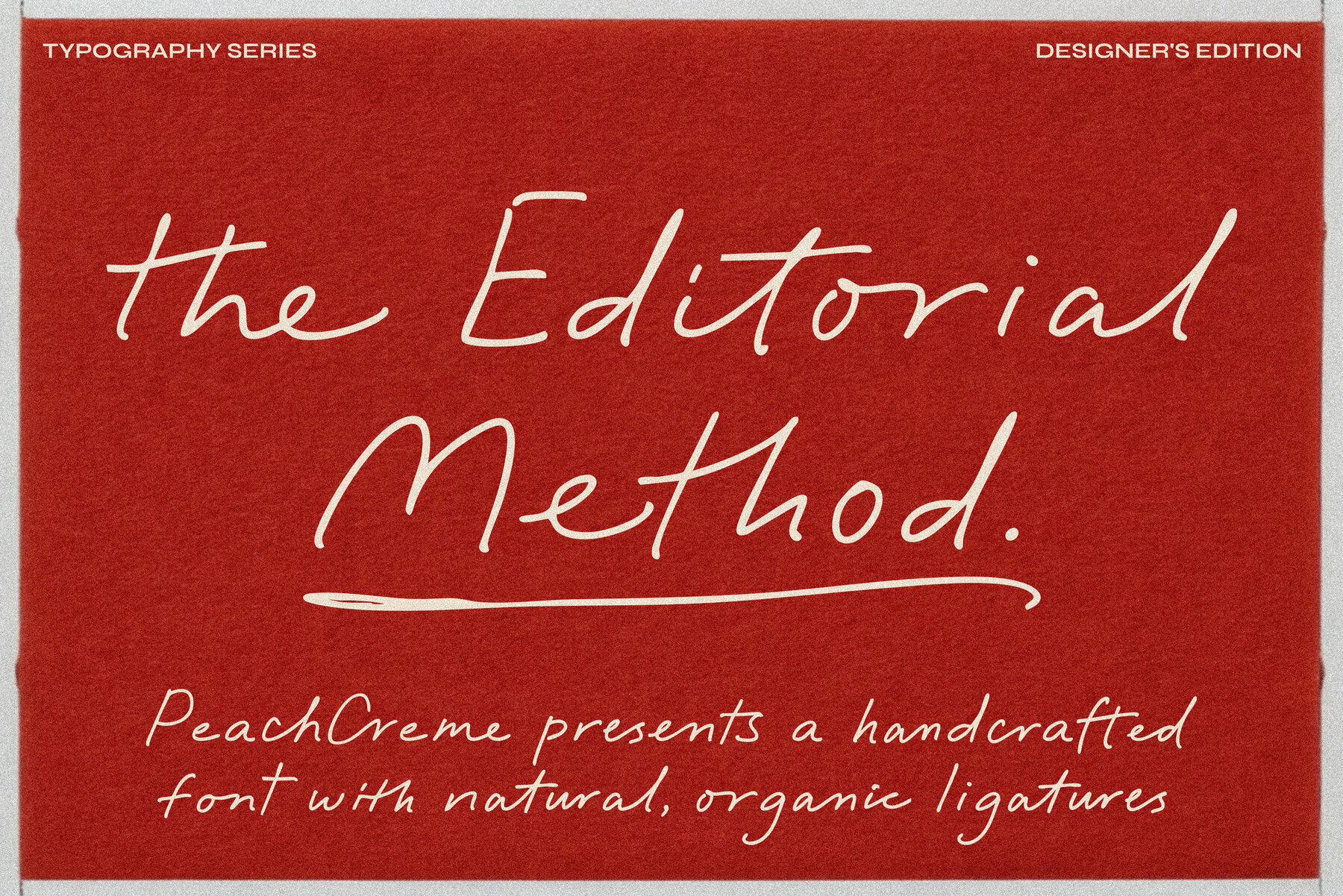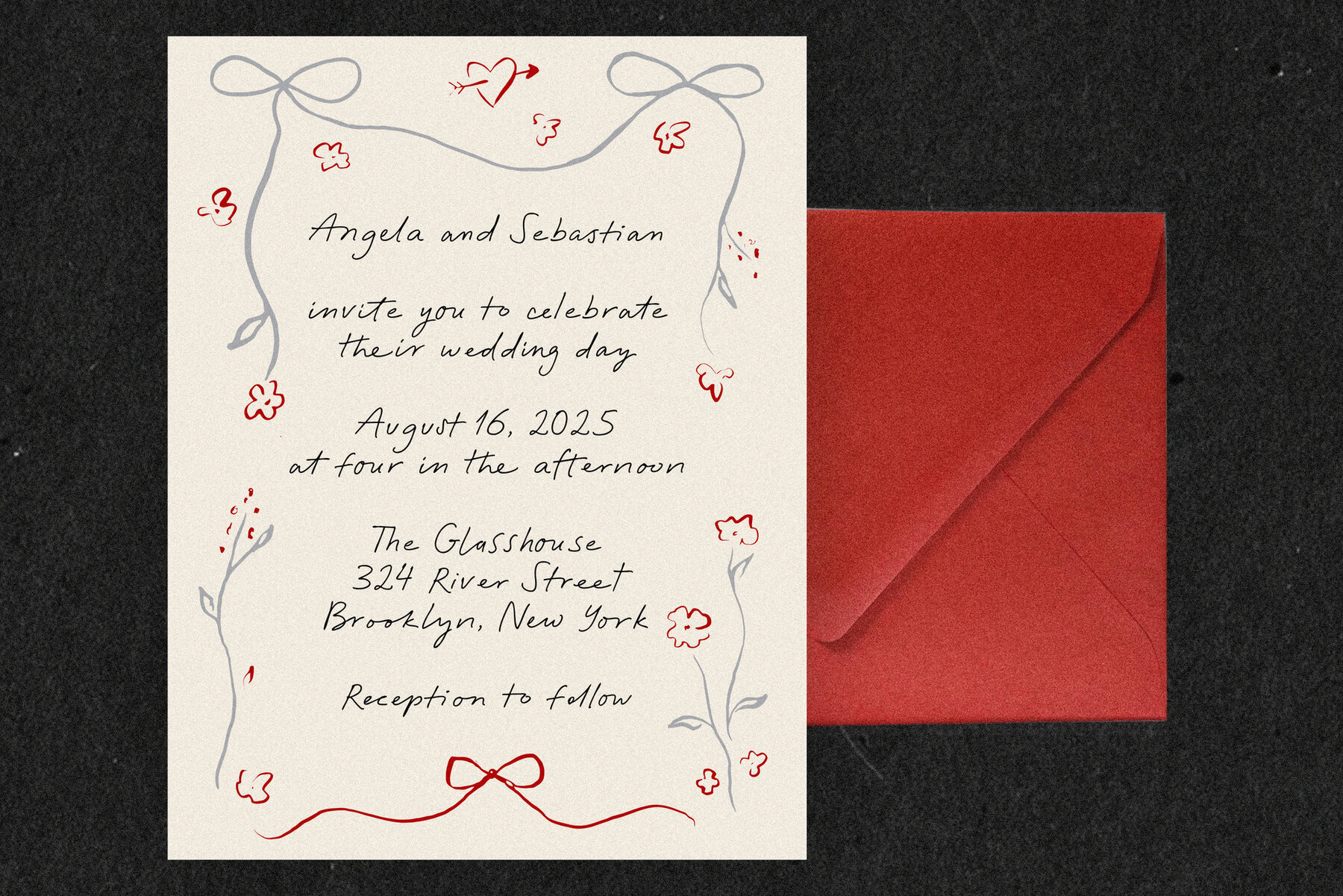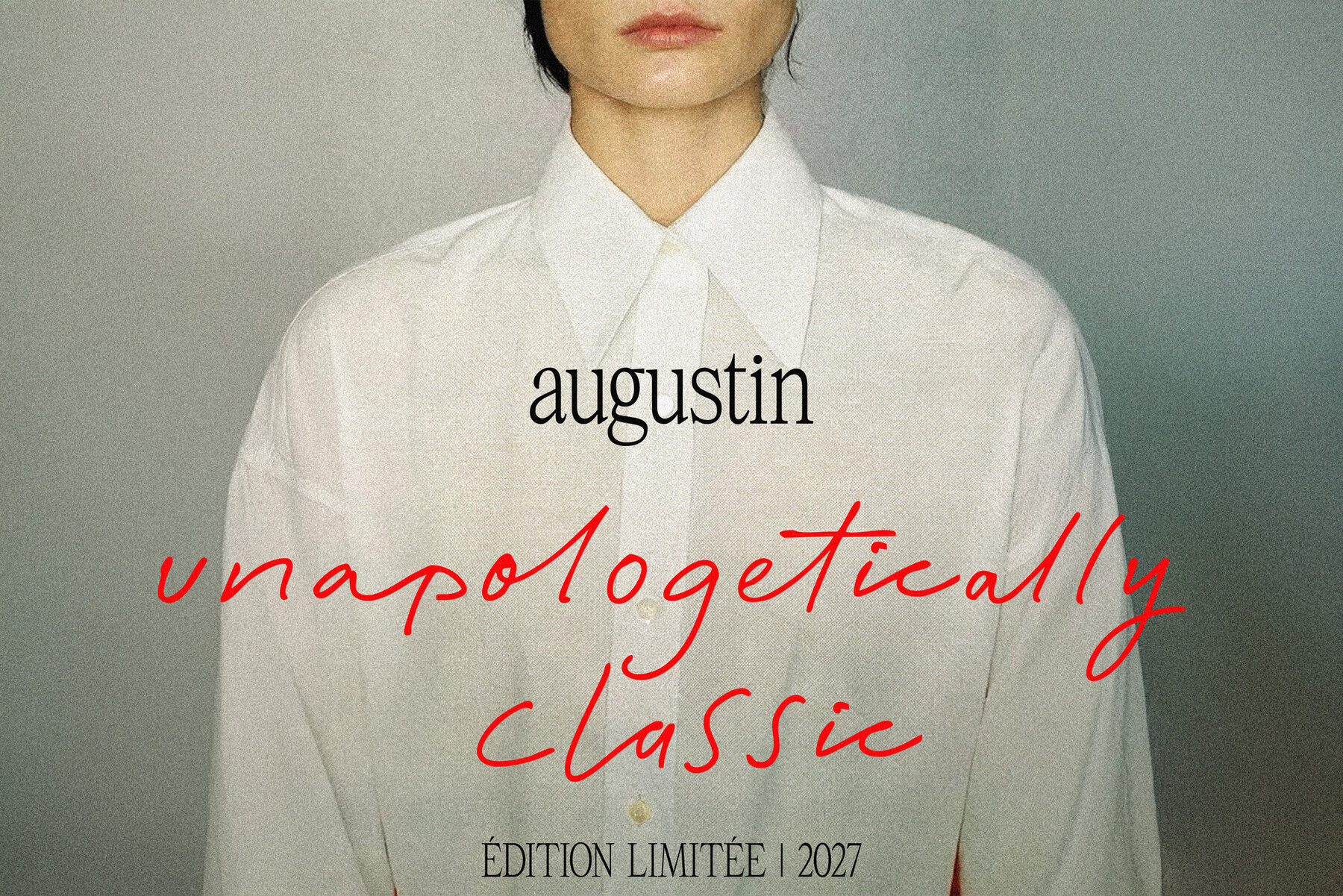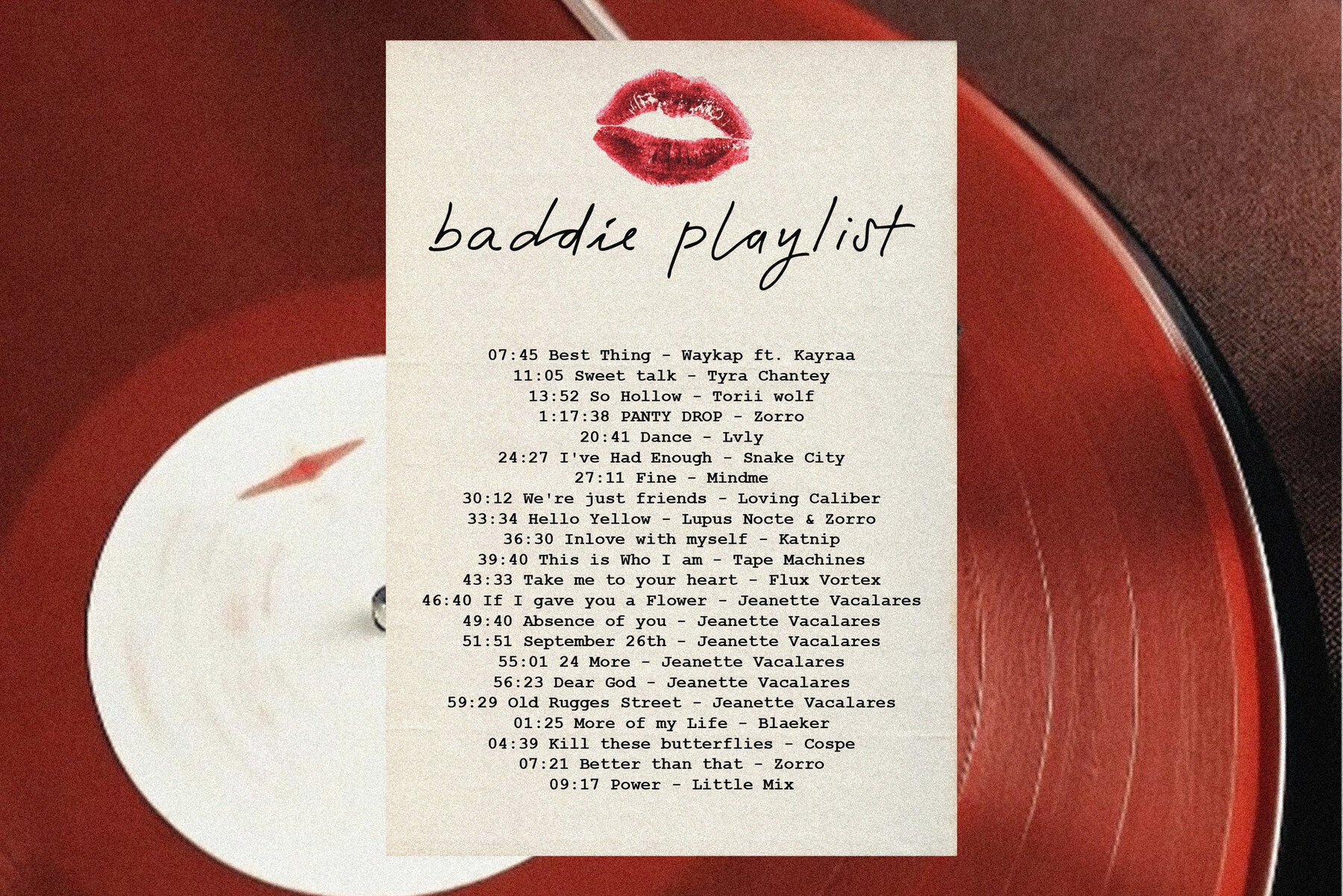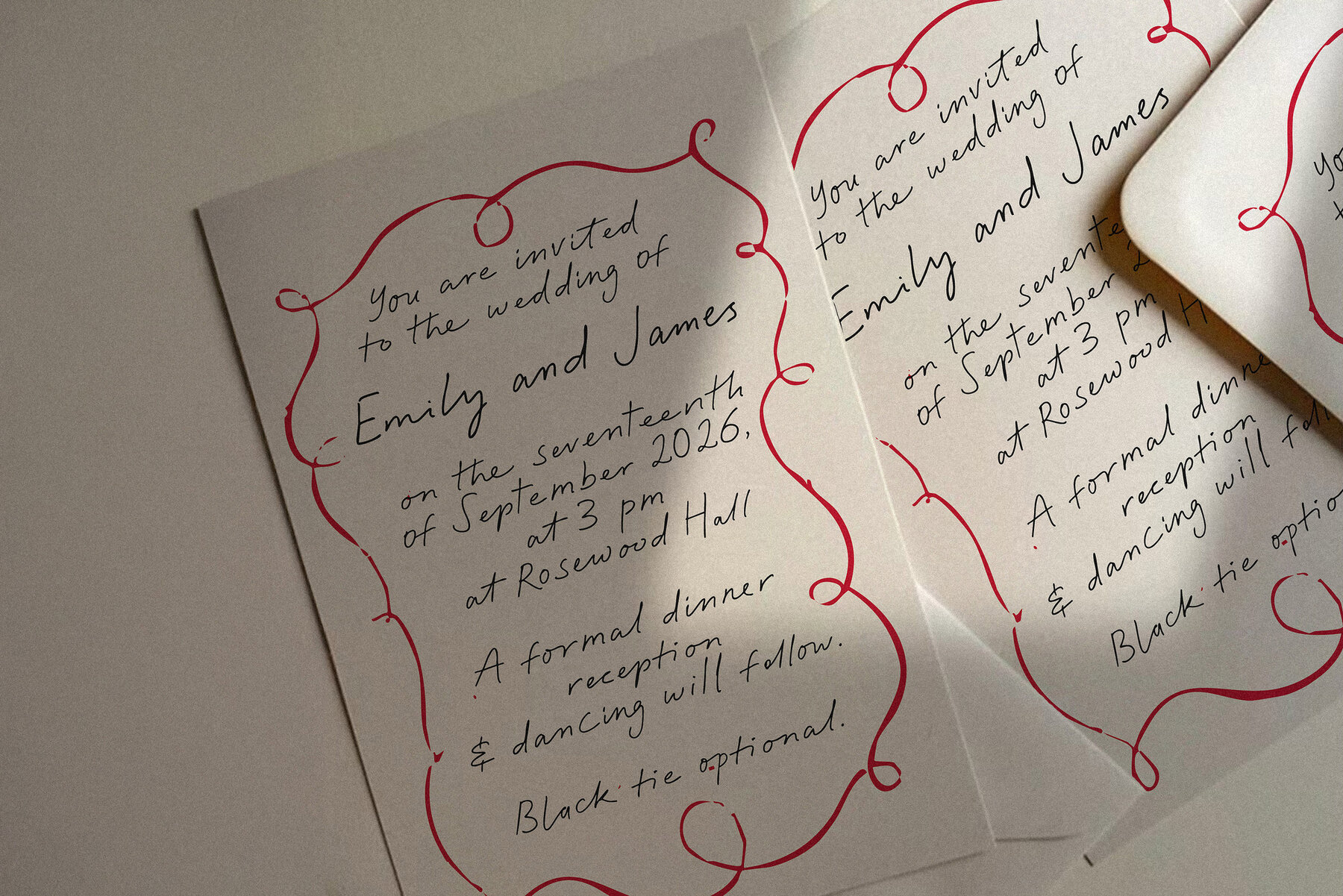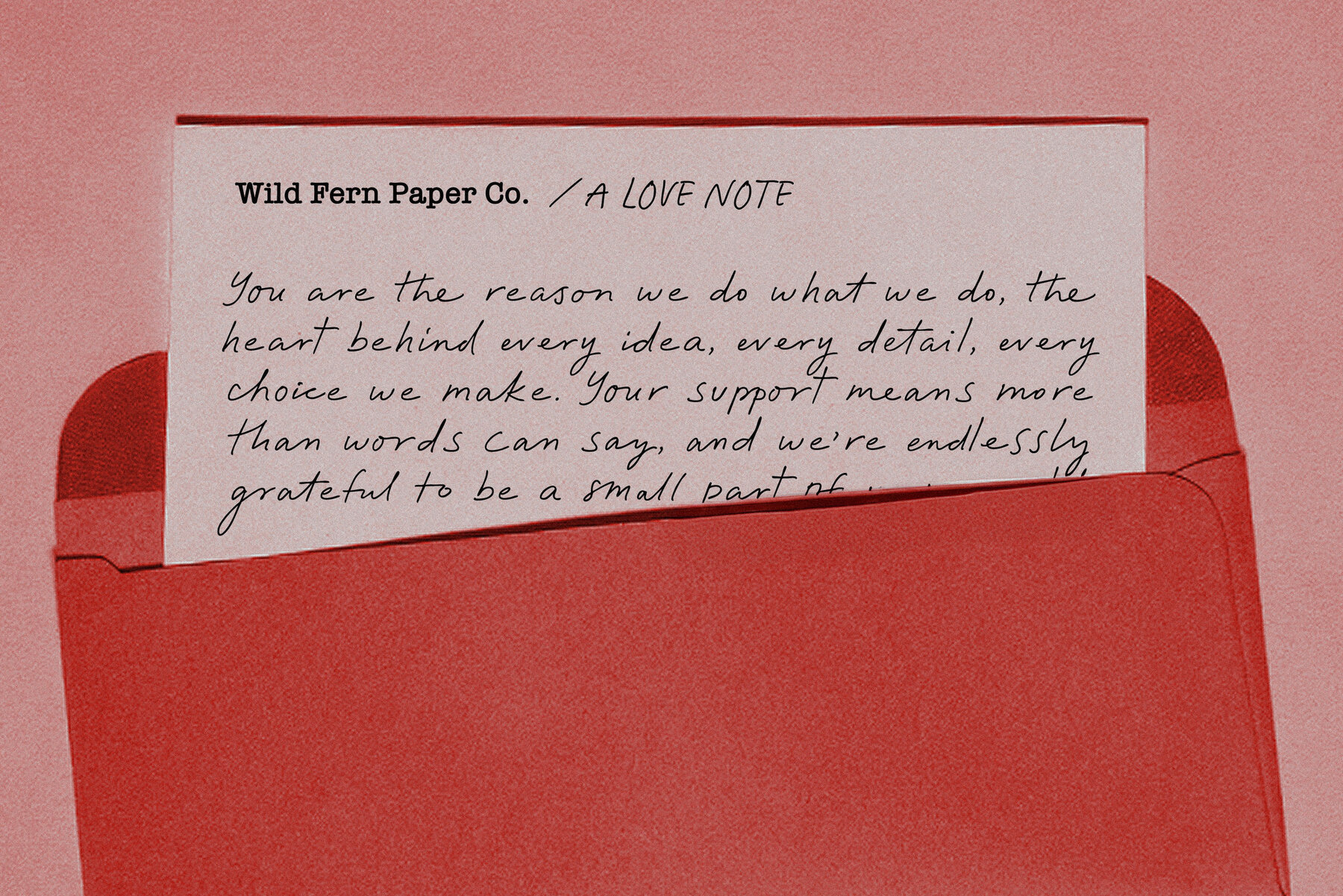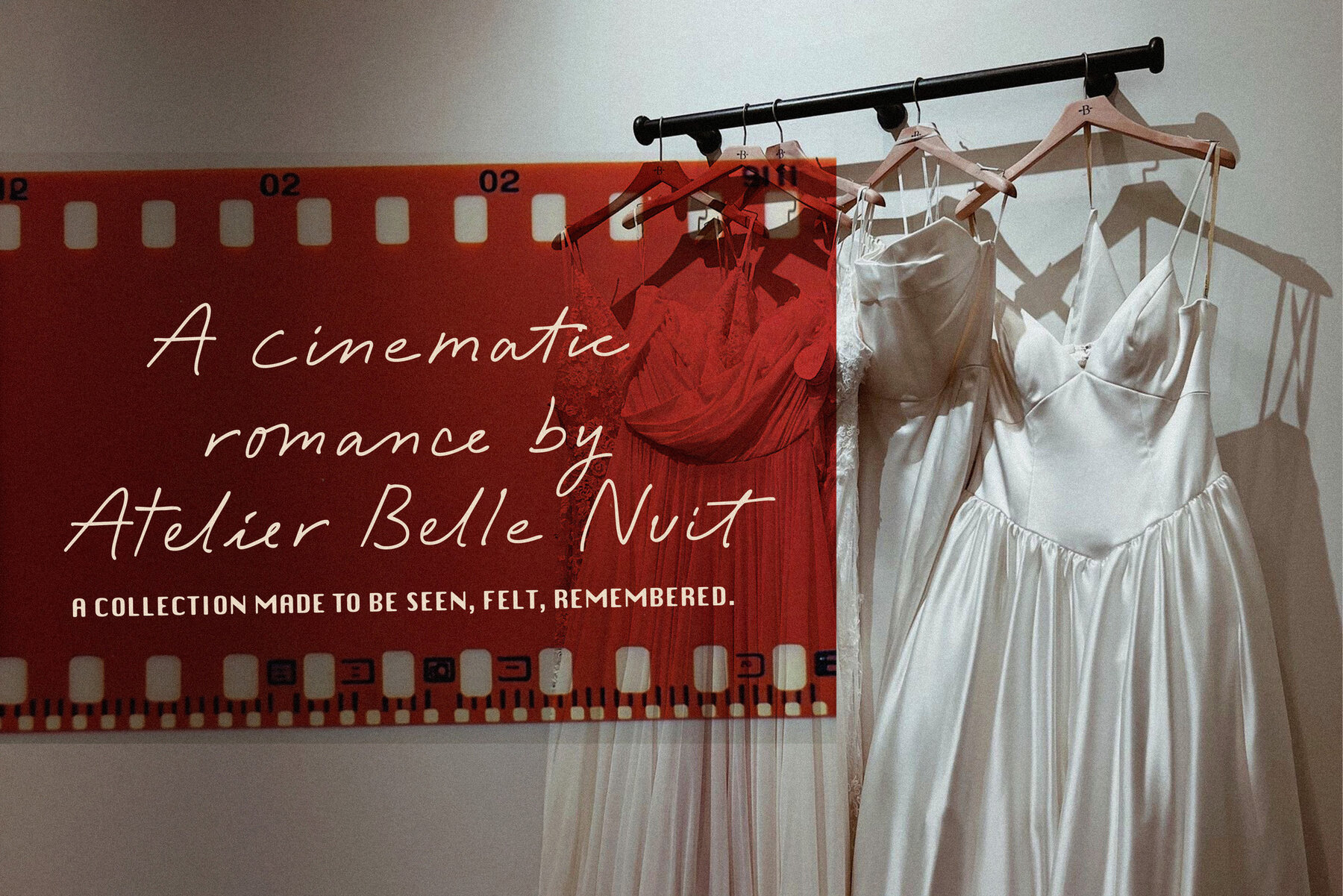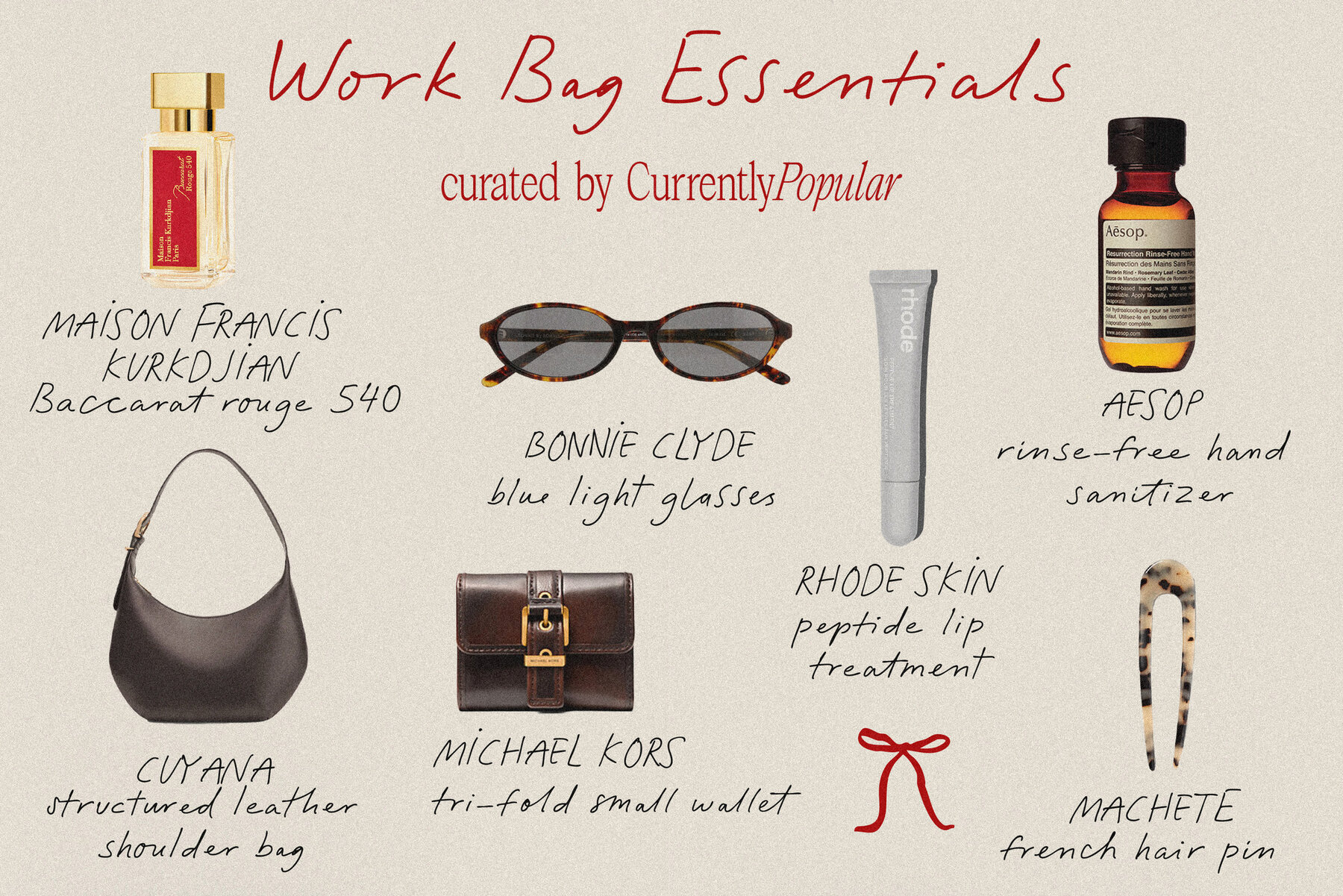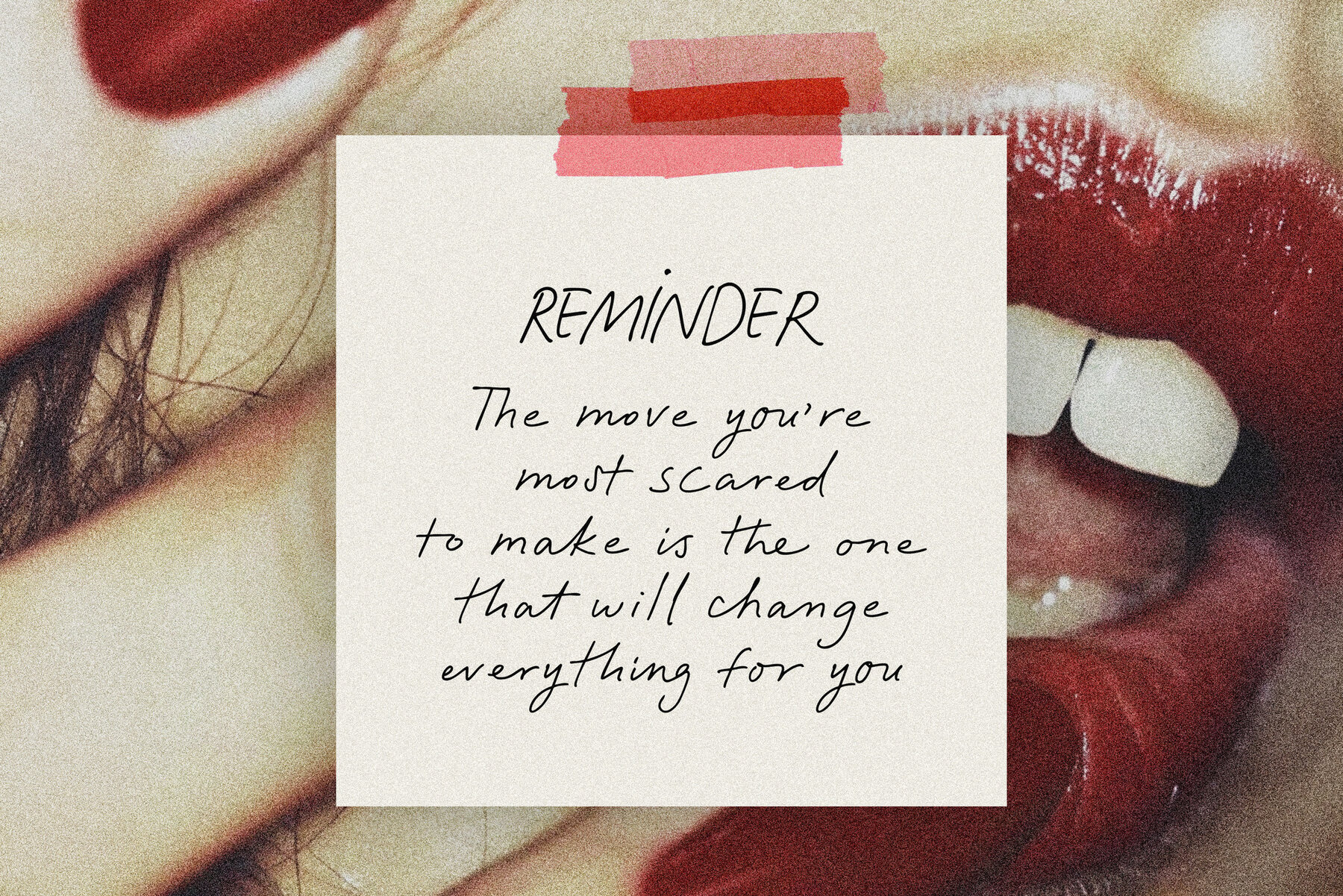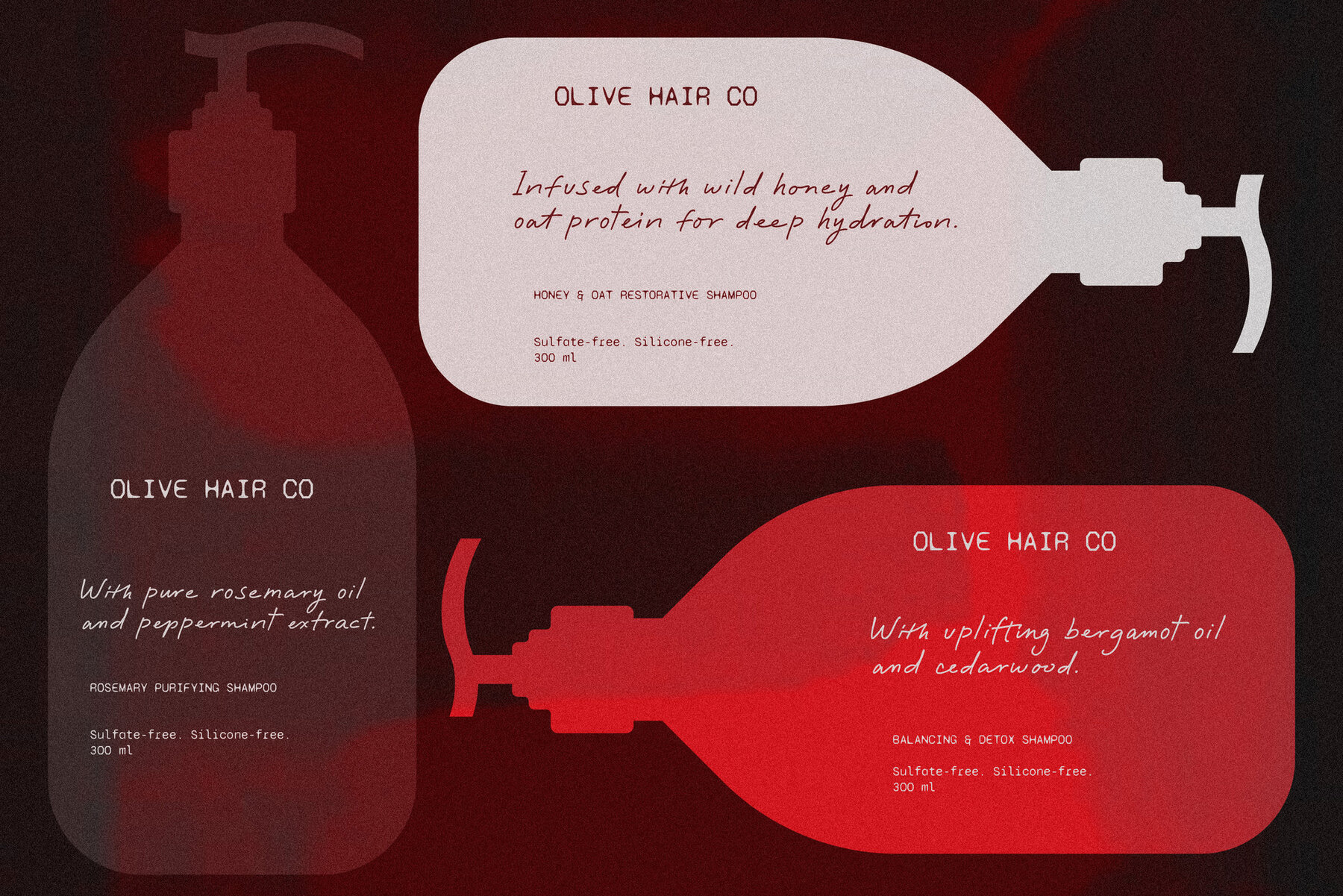
The Editorial Method is a refined script font with a balance of fluid movement and structured elegance. Designed with natural, organic ligatures, it adapts seamlessly to both formal and expressive applications. With two weights—regular and bold—it works well for editorial design, branding, invitations, and understated luxury aesthetics. The alternative uppercase set adds variety, while the ligatures create a natural, handwritten rhythm.